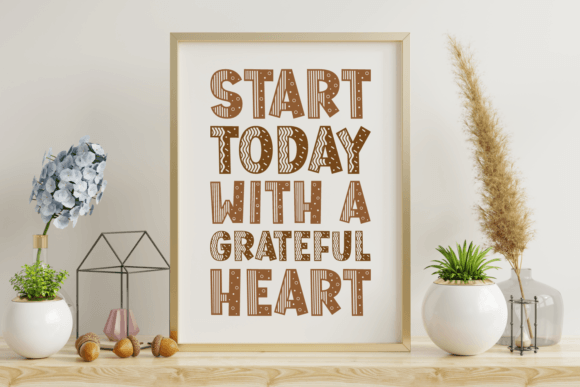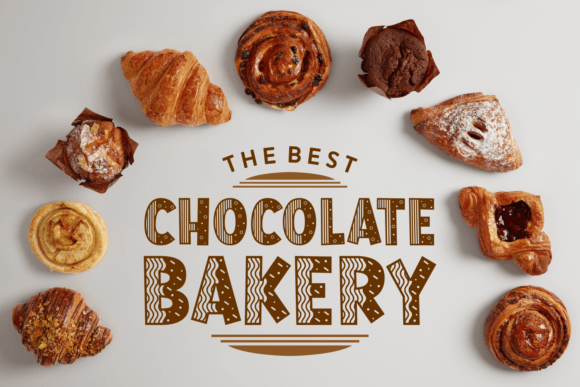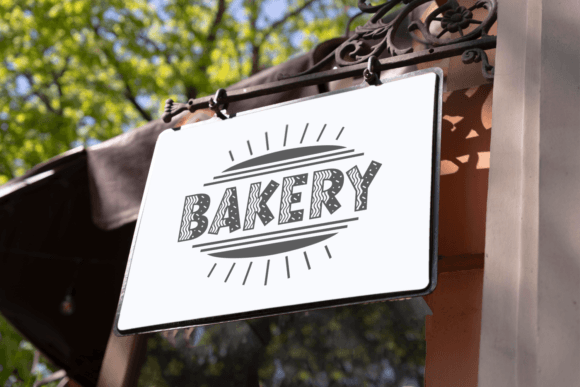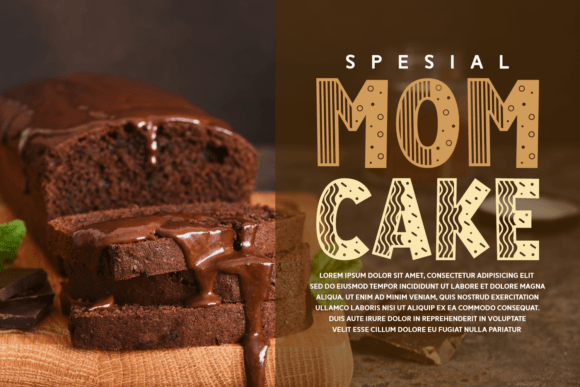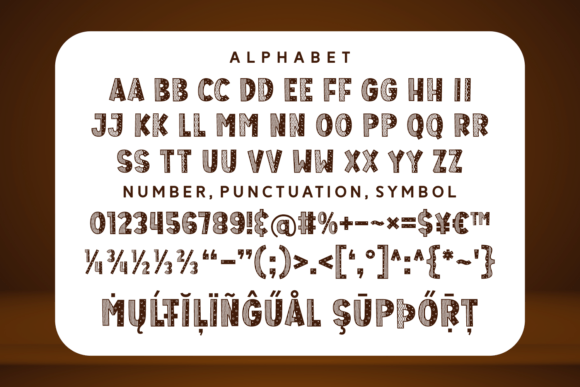
Introducing Choco Bread Font: The Sweetest Addition to Your Typography Designs
Are you a designer or crafter looking for a font that can add a touch of sweetness to your typography designs? Look no further than Choco Bread Font! This adorable decorative font is perfect for creating lovely typography designs that are sure to delight. With its wavy lines and sprinkles pattern, Choco Bread Font features everything you need to create stunning designs that are both cute and delicious-looking.
What Makes Choco Bread Font So Special?
Choco Bread Font is a unique and creative font that is designed to add a playful touch to your designs. Its wavy lines and sprinkles pattern give it a fun and whimsical feel that’s perfect for crafting projects, kid-friendly designs, branding, logos, wall art, web graphics, and many more. Whether you’re creating a design for a children’s party, a bakery, or a craft company, Choco Bread Font is the perfect choice.
Key Features of Choco Bread Font
- Wavy Lines: Choco Bread Font features wavy lines that give it a playful and whimsical feel. These wavy lines are perfect for creating designs that are fun and eye-catching.
- Sprinkles Pattern: The sprinkles pattern in Choco Bread Font adds a touch of sweetness to your designs. This pattern is perfect for creating designs that are kid-friendly and fun.
- Decorative: Choco Bread Font is a decorative font that is designed to add a touch of elegance to your designs. Its unique and creative design makes it perfect for creating stunning typography designs.
- Versatile: Choco Bread Font is a versatile font that can be used for a variety of design projects. Whether you’re creating a design for a craft company, a bakery, or a children’s party, this font is the perfect choice.
Uses of Choco Bread Font
Choco Bread Font is a versatile font that can be used for a variety of design projects. Here are some of the many uses of this amazing font:
- Crafting Projects: Choco Bread Font is perfect for crafting projects such as scrapbooking, card making, and DIY projects.
- Kid-Friendly Designs: This font is perfect for creating kid-friendly designs such as children’s party invitations, birthday cards, and kids’ website graphics.
- Branding and Logos: Choco Bread Font can be used for branding and logos for craft companies, bakeries, and other businesses that want to add a touch of sweetness to their designs.
- Wall Art: This font is perfect for creating wall art such as quotes, posters, and signs.
- Web Graphics: Choco Bread Font can be used for web graphics such as website headers, social media graphics, and blog posts.
Tips for Using Choco Bread Font
Here are some tips for using Choco Bread Font:
- Use it with Colors: Choco Bread Font looks amazing with bright and bold colors. Try using it with colors such as pink, blue, and yellow to create stunning designs.
- Experiment with Sizes: This font looks great in different sizes. Experiment with different sizes to create unique and creative designs.
- Pair it with Other Fonts: Choco Bread Font can be paired with other fonts to create stunning designs. Try pairing it with a sans-serif font for a modern look.